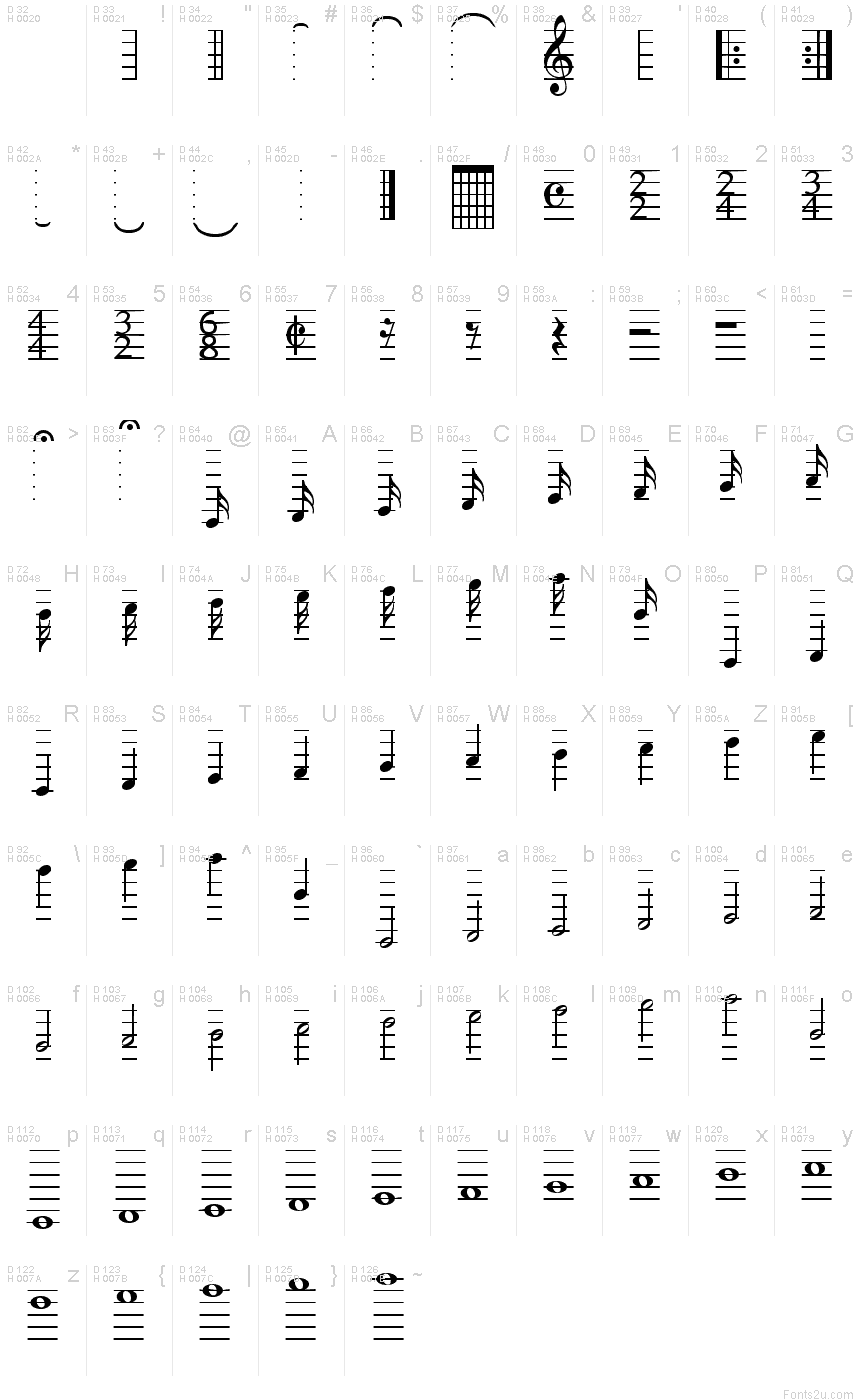
MusiQwik Bold by Robert Allgeyer is a free music notation dingbat font built from familiar staff symbols and note forms. Rounded noteheads and sweeping clef forms have a lively hand-drawn bend set against clean, even staff rules. Its individual marks look substantial and expressive rather than rigidly technical or mechanical.
It links classroom worksheets with album packaging through unmistakable musical imagery. Concert posters and editorial features can use the notation as both decoration and a direct reference to performance, composition, or learning an instrument.
MusiQwik Bold
Robert Allgeyer
Robert Allgeyer (Aptos, CA USA)